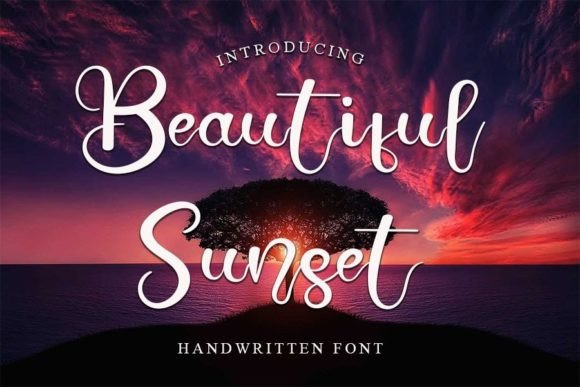
Indulge in the ethereal beauty of Beautiful Sunset, a captivating script font that will elevate your designs to new heights. With its elegant curves and graceful strokes, this font embodies the allure of a delicate summer sunset, inviting you to capture the essence of romance and joy in your creative endeavors.
Whether you're crafting exquisite wedding invitations, enchanting cards, or designing projects that demand a touch of whimsy, Beautiful Sunset is the perfect companion. Its slim and delicate nature lends an air of effortless sophistication, transforming your words into works of art.
Step into a world of endless possibilities with Beautiful Sunset. Its versatility knows no bounds, empowering you to express your creativity with limitless charm. From enchanting logos that captivate the hearts of your audience to awe-inspiring posters that evoke a sense of wonder, this font will elevate your designs beyond the ordinary.
Embrace the magic of Beautiful Sunset today and let its enchanting essence ignite your imagination. Experience the joy of crafting designs that radiate with romance, elegance, and a touch of summer magic.